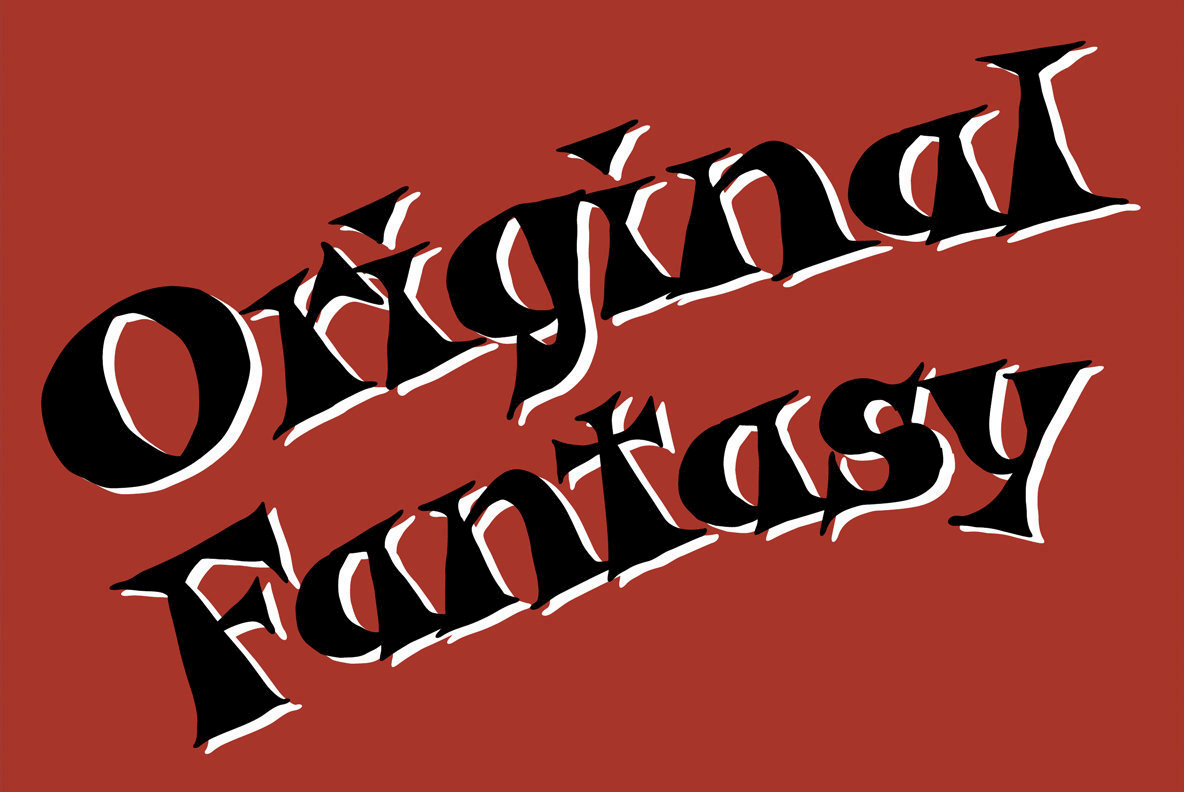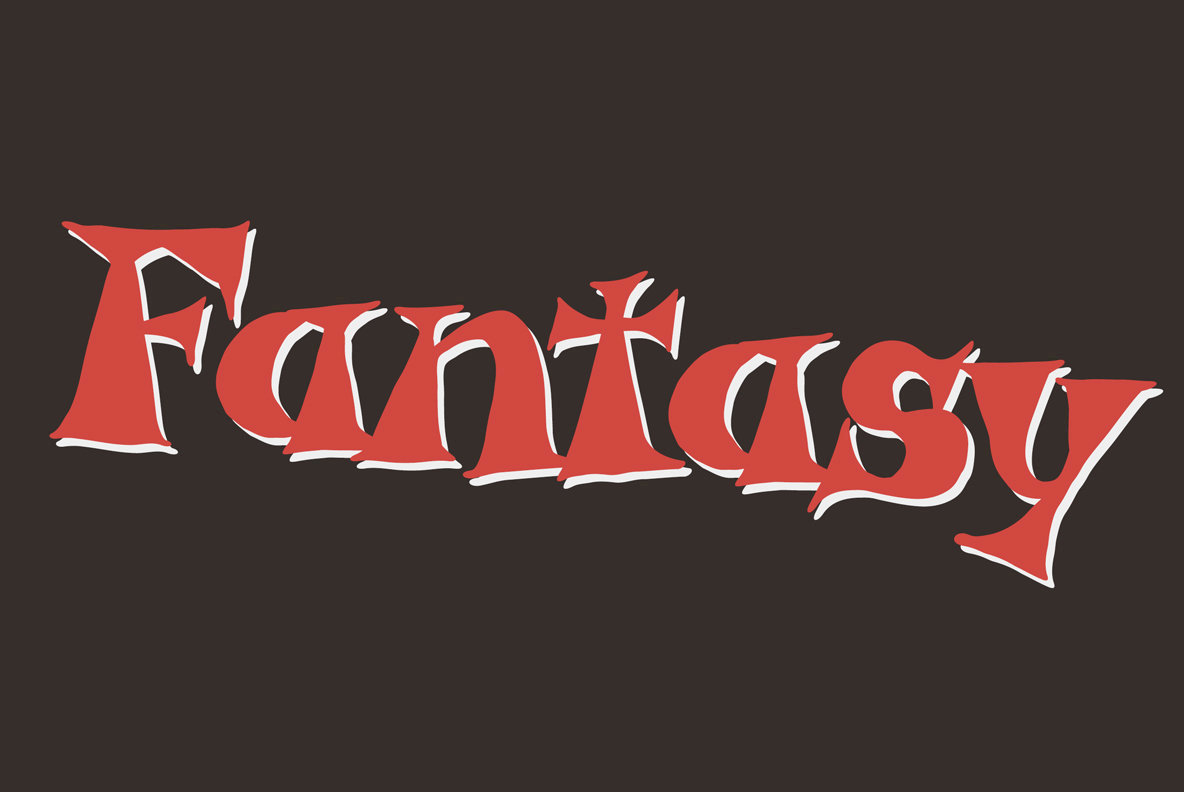
Garash Script
Foundry: Ryoichi Tsunekawa
Very decprative script inspired by old lettering in eastern europe. Very eye-catching for picture books and toys for children.